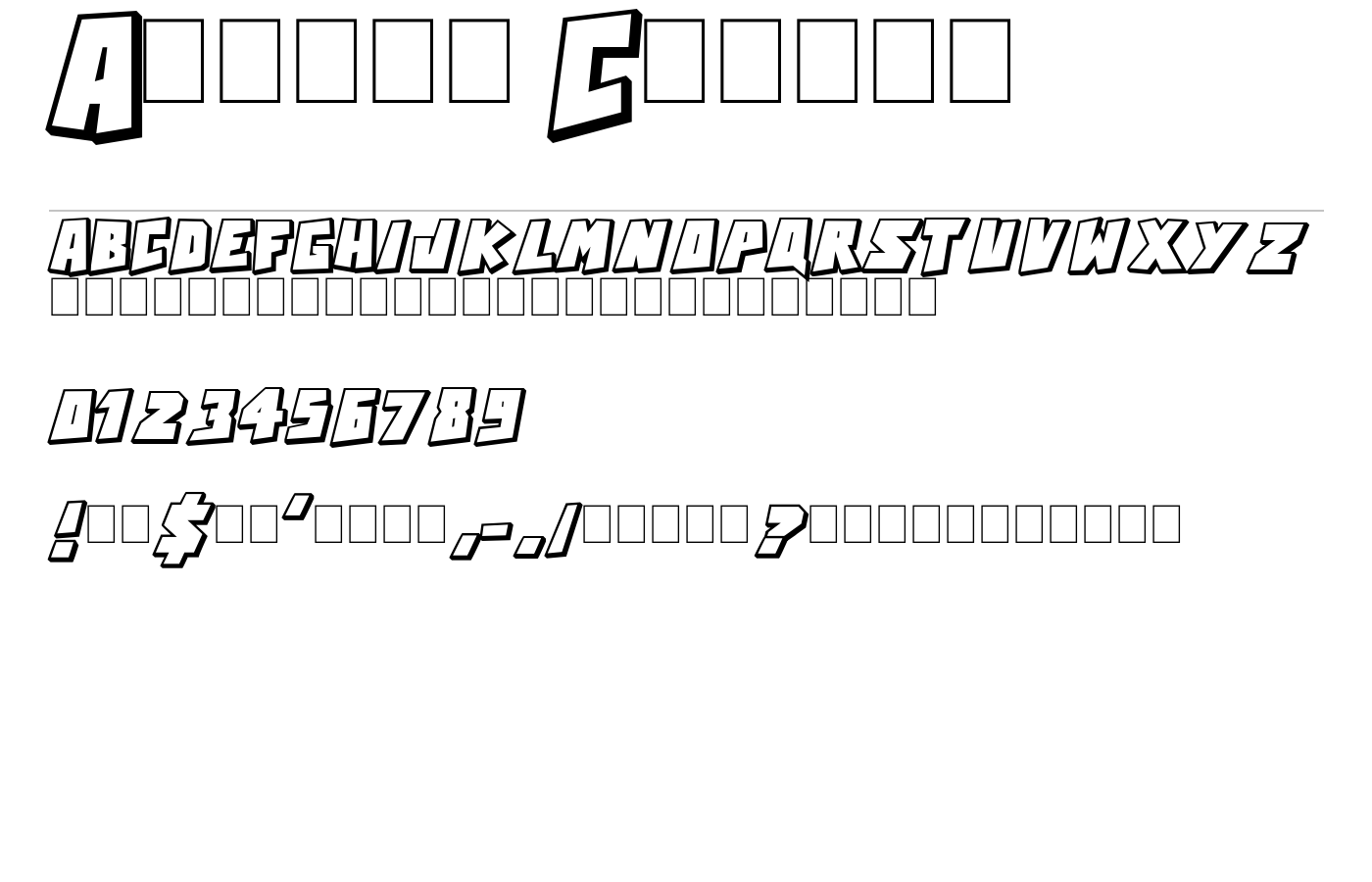
Action Comics is a bold, dynamic display font with a comic book style that features chunky, uppercase letters with a playful slant and strong black outlines creating a sense of depth and movement. Its energetic and impactful design makes it perfect for eye-catching headlines, logos, and branding that aim to convey action, excitement, and fun, especially in entertainment or superhero-themed contexts.
Action Comics Font
About Action Comics Font